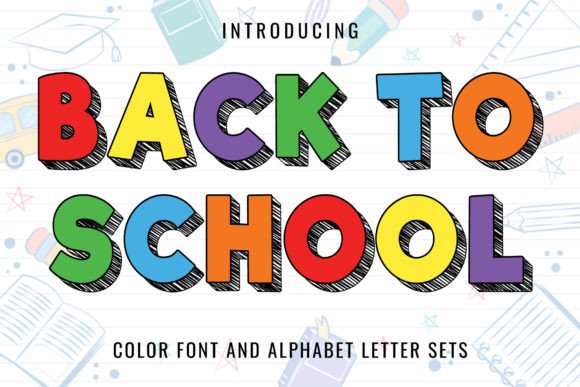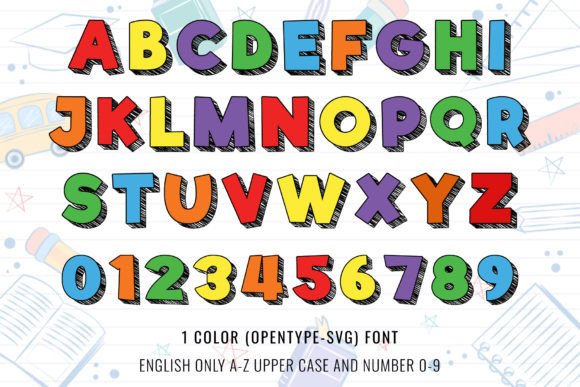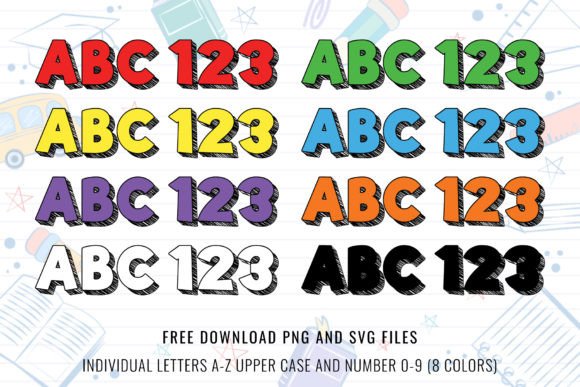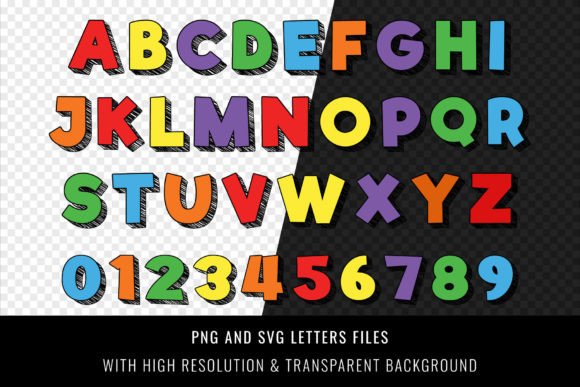
Back to School Font
Introducing “Back to School Color Font” – is a fun and playful color font. It’s the perfect font for school-themed projects. It works great for creating cool designs that scream for attention. It’s ideal for anything ranging from t-shirts, book designs, restaurant menus, blog writing, and greeting cards to stickers, or anything that needs a casual touch. Fall in love with its incredibly cool style, and use it to create lovely designs!The black version of this font is compatible with Cricut Design Space and other cutting machines.Note! The color version of this font is only compatible with certain design programs incl. PhotoShop, Illustrator, Silhouette, and Inkscape. The OTF and/or TTF files of the color version are not compatible with Cricut. For more information on how to use this type of font please check our Ultimate Font Guide .